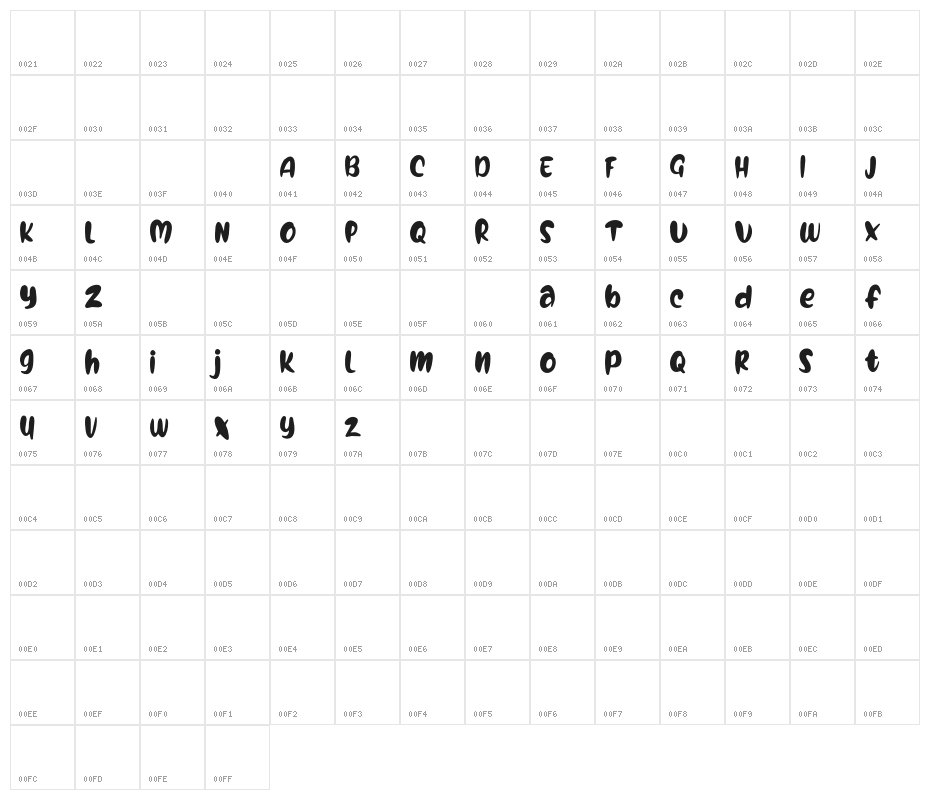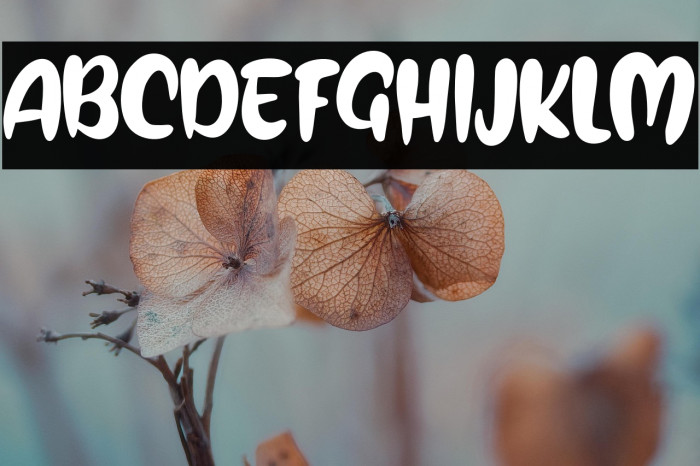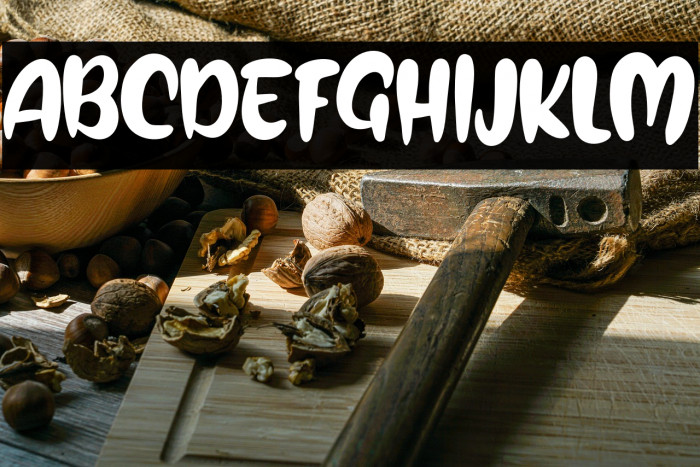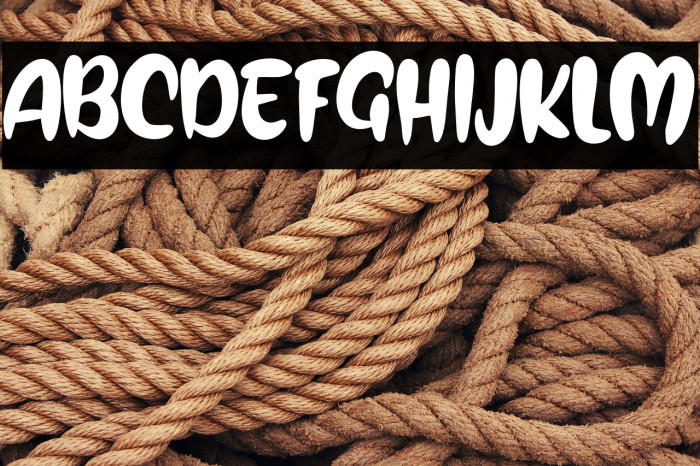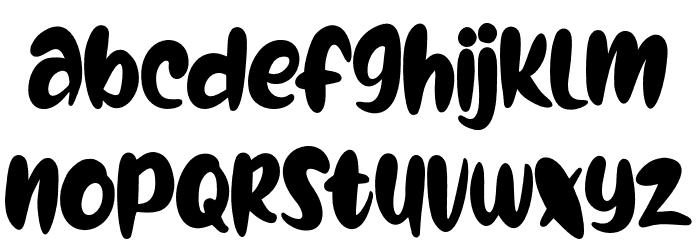
HolifeFREE Font
HolifeFREE Description
This font features a bold and playful style with rounded, thick strokes that give it a friendly and approachable appearance. The characters are slightly condensed, enhancing its compact look while maintaining legibility. The uppercase and lowercase letters share a consistent design, with smooth curves and a uniform stroke width that adds to its cohesive aesthetic. The font's whimsical nature makes it suitable for creative and informal applications, where a sense of fun and energy is desired. Its boldness ensures it stands out, making it ideal for attention-grabbing headlines or logos.
| Proposed Projects | Ideal for children's books, playful branding, event invitations, and creative posters. |